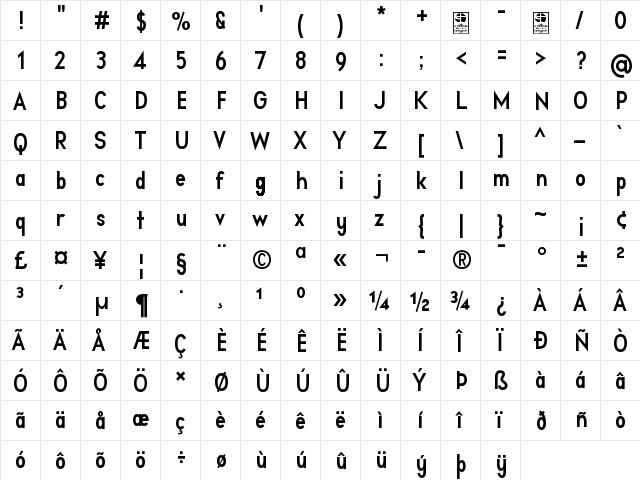
Aprikas Bold Demo Regular
Design Context for Aprikas Bold Demo Typeface
Aprikas Bold Demo offers clean, dependable letterforms without strong stylistic allegiance, making it a practical choice for designers who need flexibility. The heavy weight commands attention and anchors typographic hierarchies.
Pro Tip: Pair Aprikas Bold Demo with a font of contrasting weight or personality to build a more expressive typographic hierarchy.